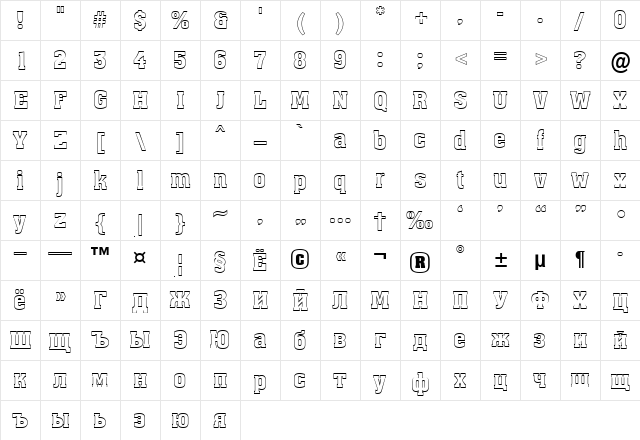
Complete a_AssuanOtl Medium glyph index. Displaying only characters natively supported by a_AssuanOtl Medium font.
a_AssuanOtl is a composed and adaptable typeface that performs quietly and consistently across a wide range of design contexts.